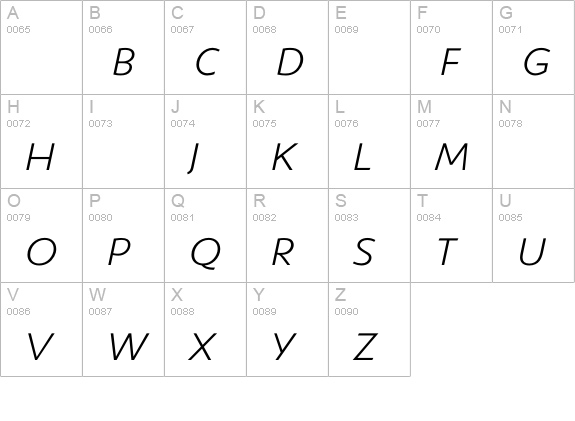
ShinnLightItalic Font Details
ShinnLightItalic is a stunning and elegant font that exudes sophistication and style. Its delicate italicized design adds a touch of grace and refinement to any project, making it perfect for invitations, logos, and editorial designs. The curved letterforms and subtle slant of ShinnLightItalic create a sense of movement and fluidity, making it a versatile choice for both formal and contemporary designs. What sets ShinnLightItalic apart is not just its beauty, but also its accessibility. This font is available for free download at FontsMarket.com, ensuring that everyone can enjoy its captivating charm without any financial constraints. Whether you're a professional designer looking to elevate your projects or an aspiring creative seeking to add a touch of sophistication to your personal endeavors, ShinnLightItalic is readily accessible and just a few clicks away. With its timeless design and the added convenience of being freely available, ShinnLightItalic is a must-have font for any design enthusiast. Its versatility, elegance, and accessibility make it a true gem in the world of typography. Download ShinnLightItalic today and unleash your creativity with this exquisite font.